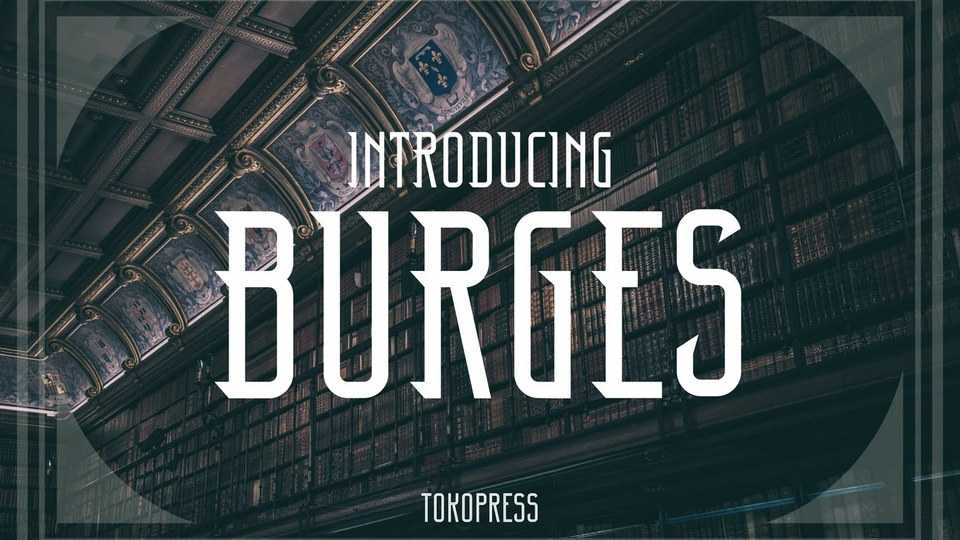
Download Burges font, a classic typeface. Taking an art deco look, Burges is all about classic, with solid uppercase, and inline lowercase, it brings a lot of vintage feels to it.